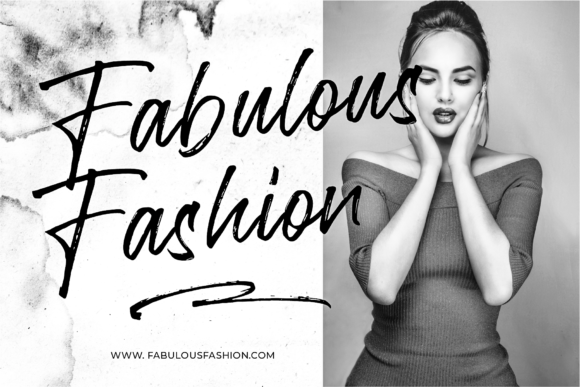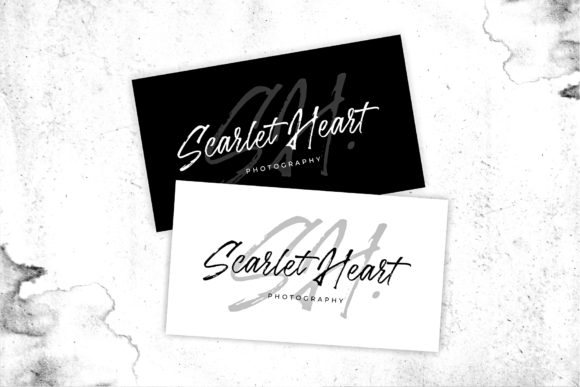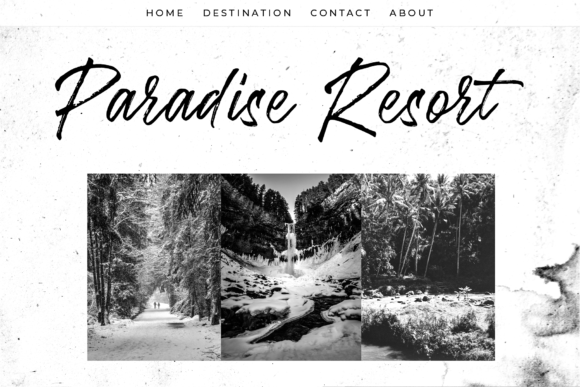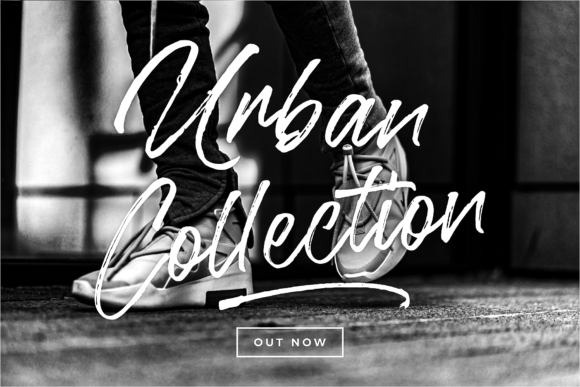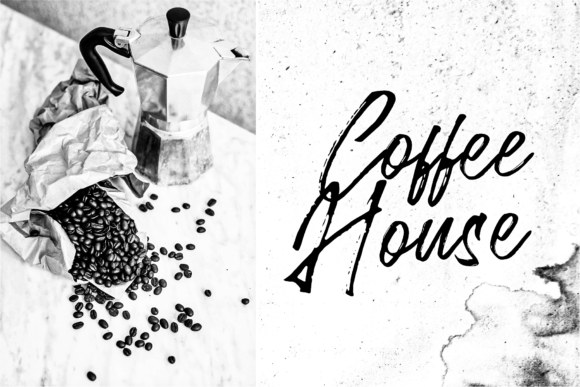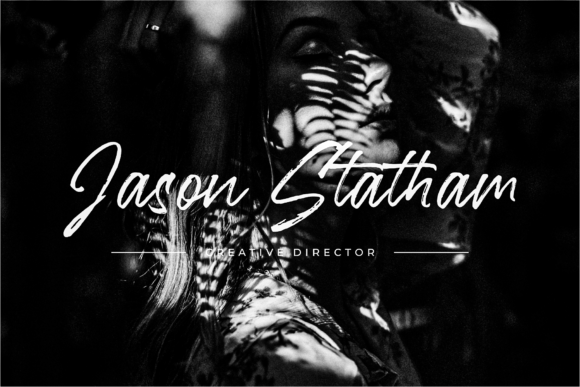
Introduction to Rollover Font
Rollover is a strong, bold and authentic script with gorgeous swashes.
Get inspired by its personal look & feel .
Key Features of Rollover Font
Why Choose Rollover Font?
Rollover Font offers exceptional quality and versatility, making it a valuable addition to your design toolkit. Whether you’re creating for personal projects or commercial use, Rollover Font delivers professional results.